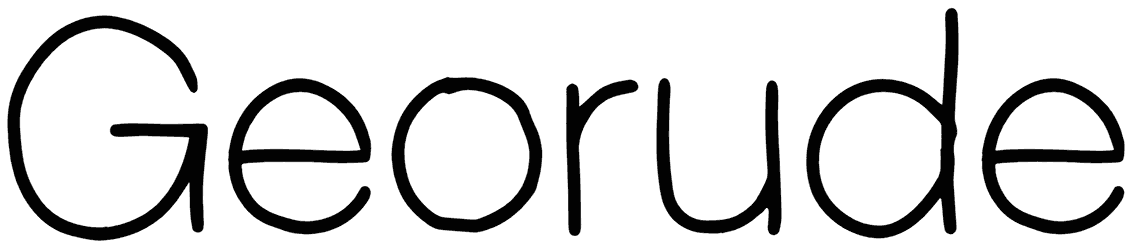
Georude Font
Georude is the perfect script font to use if you want your design to have a professional look and feel. Because of its geometric letters, it can lend a more educational tone to your digital works.
This handwritten font works great for everything from advertisements and flyers to clothing and home decor. If you’re looking for a challenge and a chance to wow your client, this handwritten font is a great place to start.